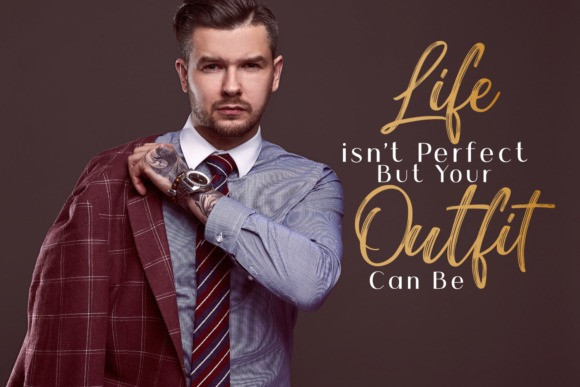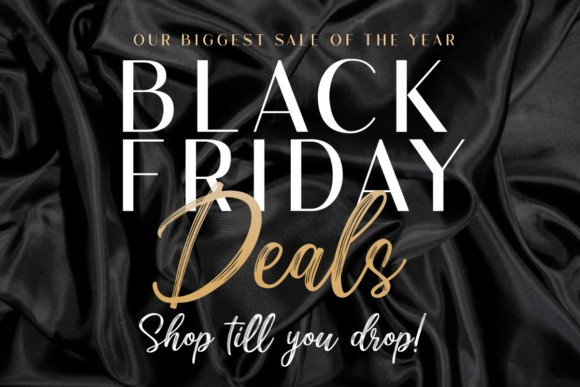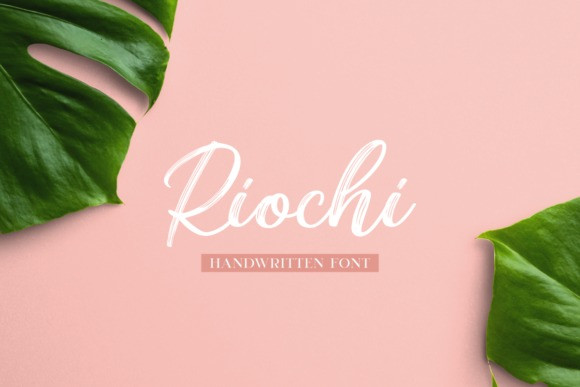
Riochi Font
Riochi Font is a spectacular duo font (sans serif and script). Incredibly versatile, this font fits a wide pool of designs, elevating them to the highest levels. Add this font to your favorite creative ideas and notice how it makes them come alive!